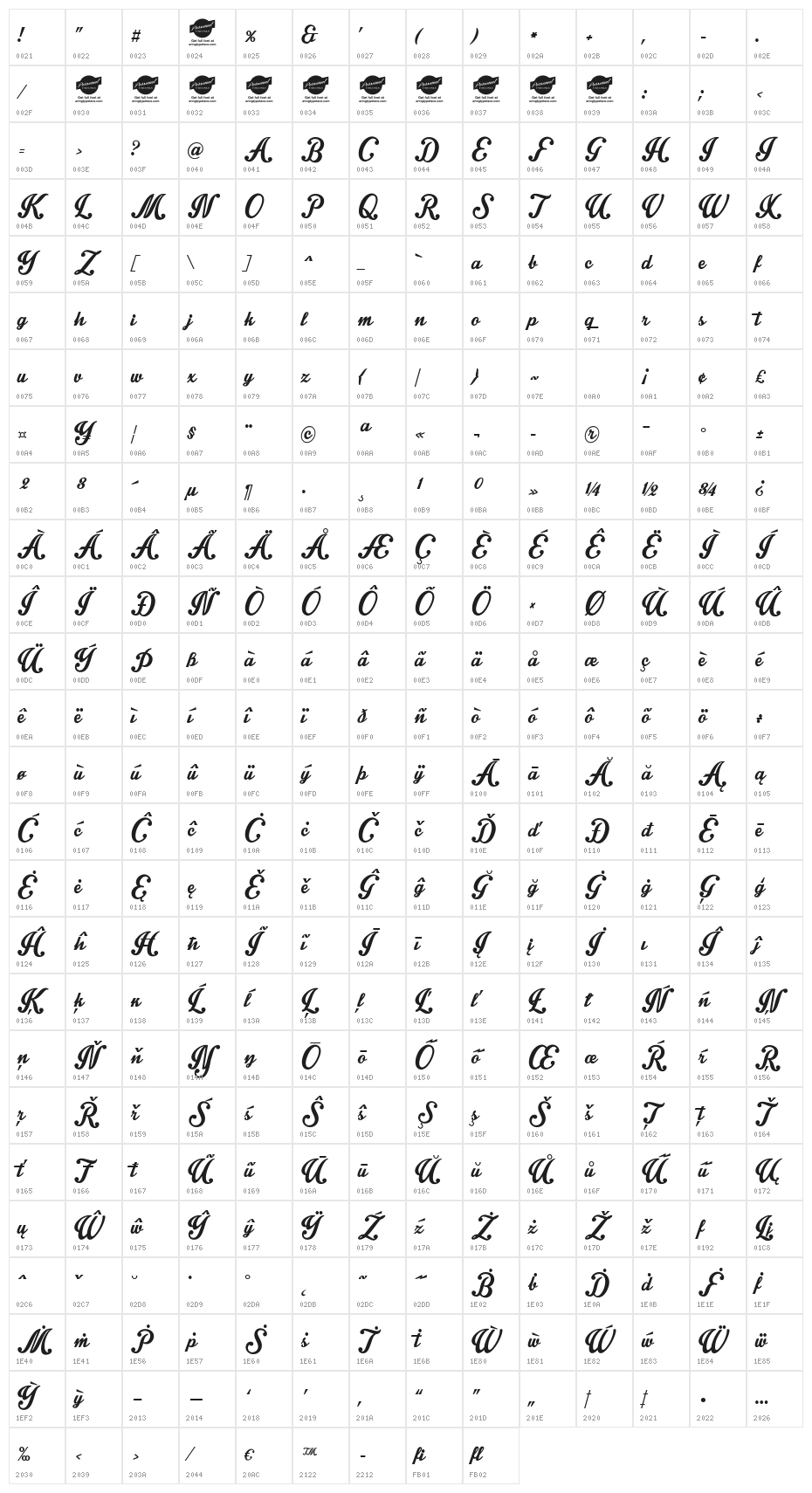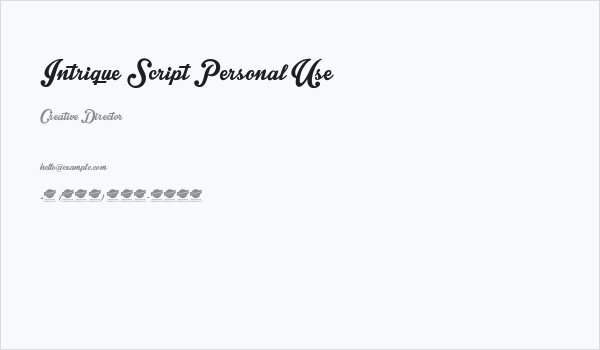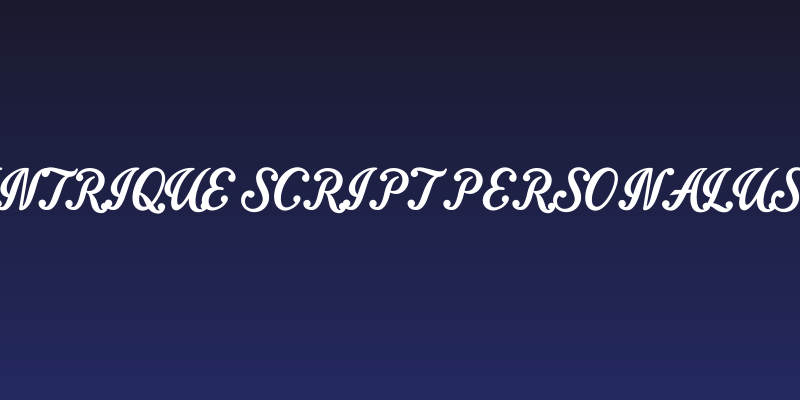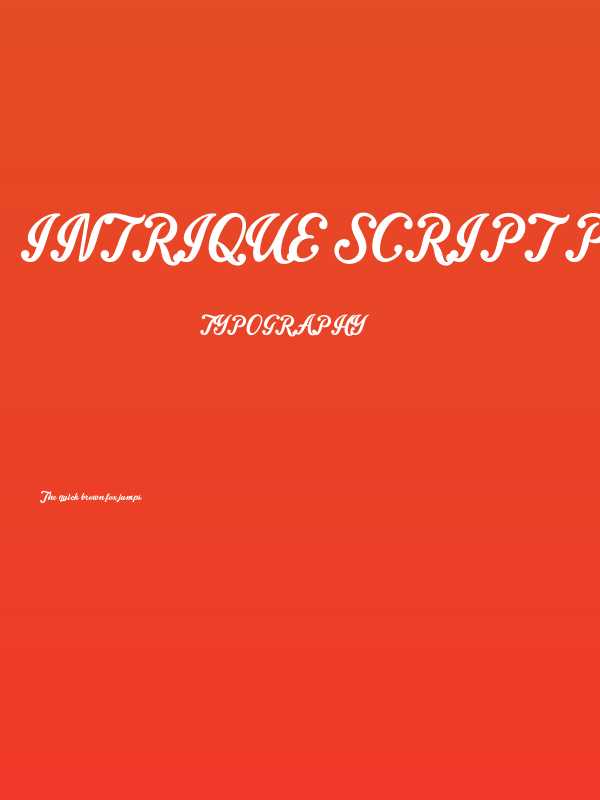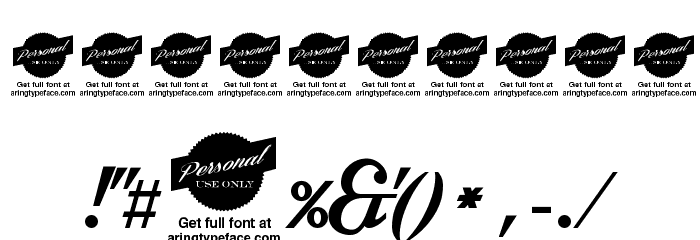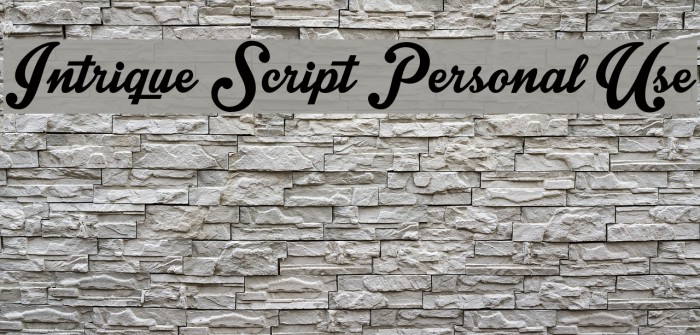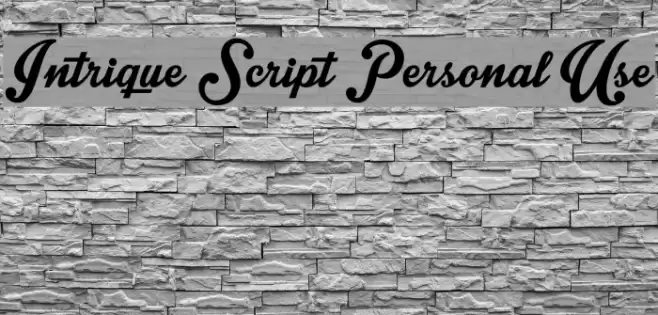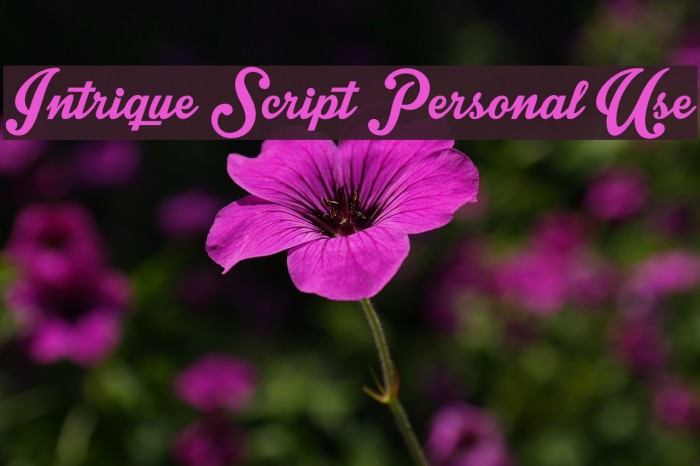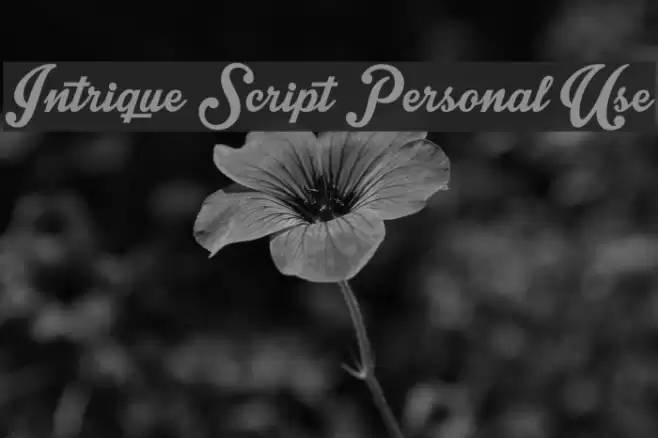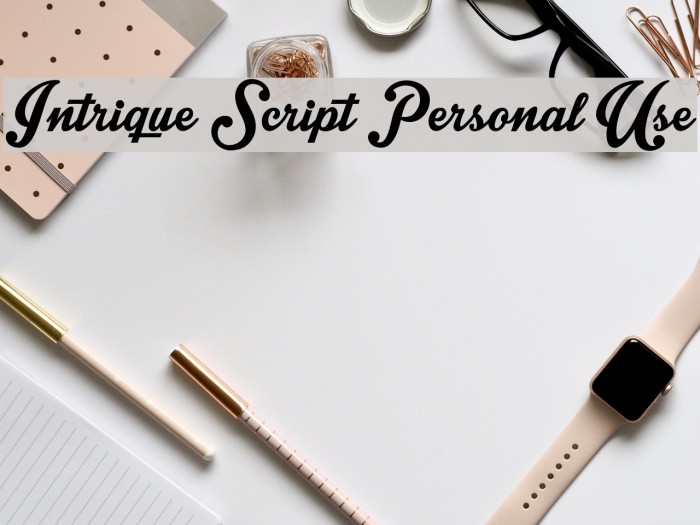
Intrique Script Personal Use Font
Intrique Script Personal Use Description
This font features an elegant and flowing script style, characterized by its smooth, cursive letterforms that convey a sense of sophistication and grace. The uppercase letters are bold and slightly slanted, with intricate loops and swashes that add a decorative touch. The lowercase letters maintain a consistent flow, enhancing readability while preserving the artistic flair. The numerals and special characters are designed to complement the overall style, ensuring a cohesive look across all text elements. This font is ideal for creating a refined and stylish appearance in any project.
| Use Case | Logos, Invitations, Decorative text |
| Proposed Projects | Ideal for wedding invitations, elegant branding, greeting cards, and decorative signage. |